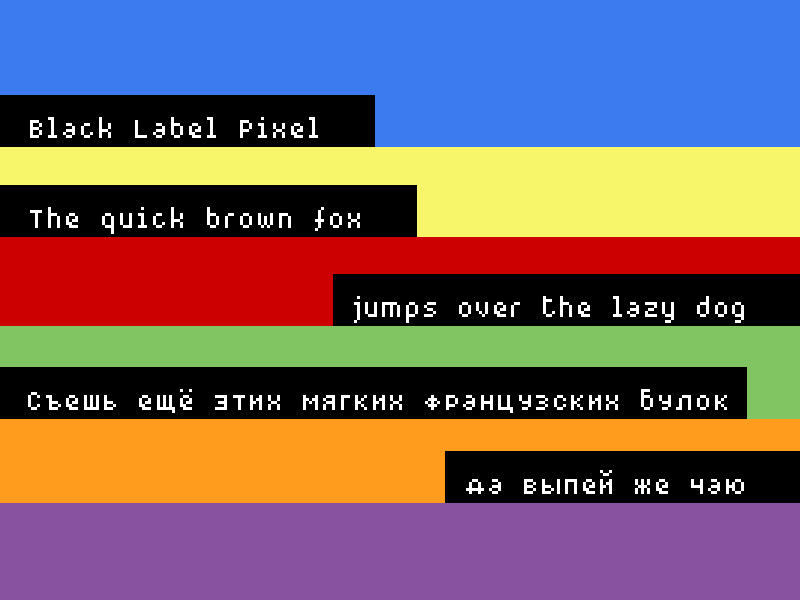
BLACK LABEL PIXEL is a Dymo-like bitmap font. For more information about the use of bitmap fonts, please make sure you check the Help in the Bitmap section on dafont: http://www.dafont.com/bitmap.php In case you experience white spaces between letters, you should slightly decrease kerning/tracking. This font supports many languages and is free for personal use. If you wish to use it for a commercial purpose, please contact me: contact [at] fthafm [dot] com Facebook: http://www.facebook.com/fthafm | Website: http://www.fthafm.com/ |